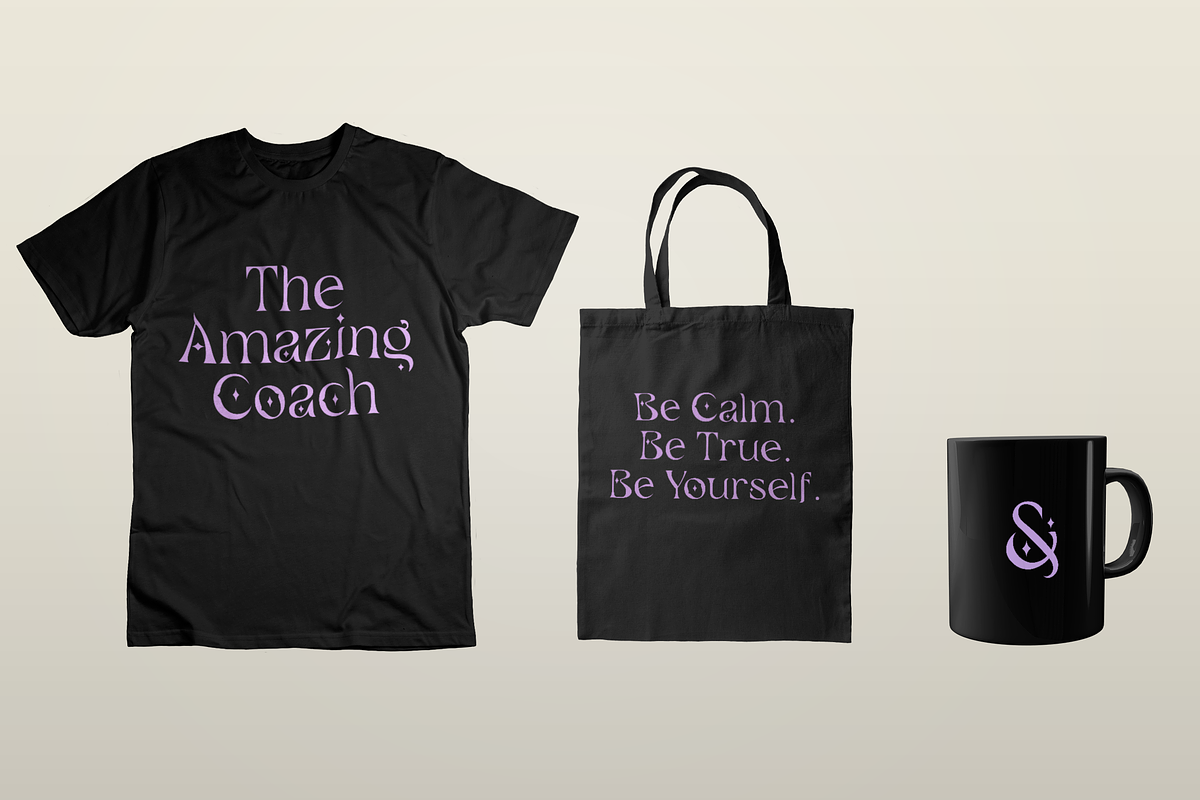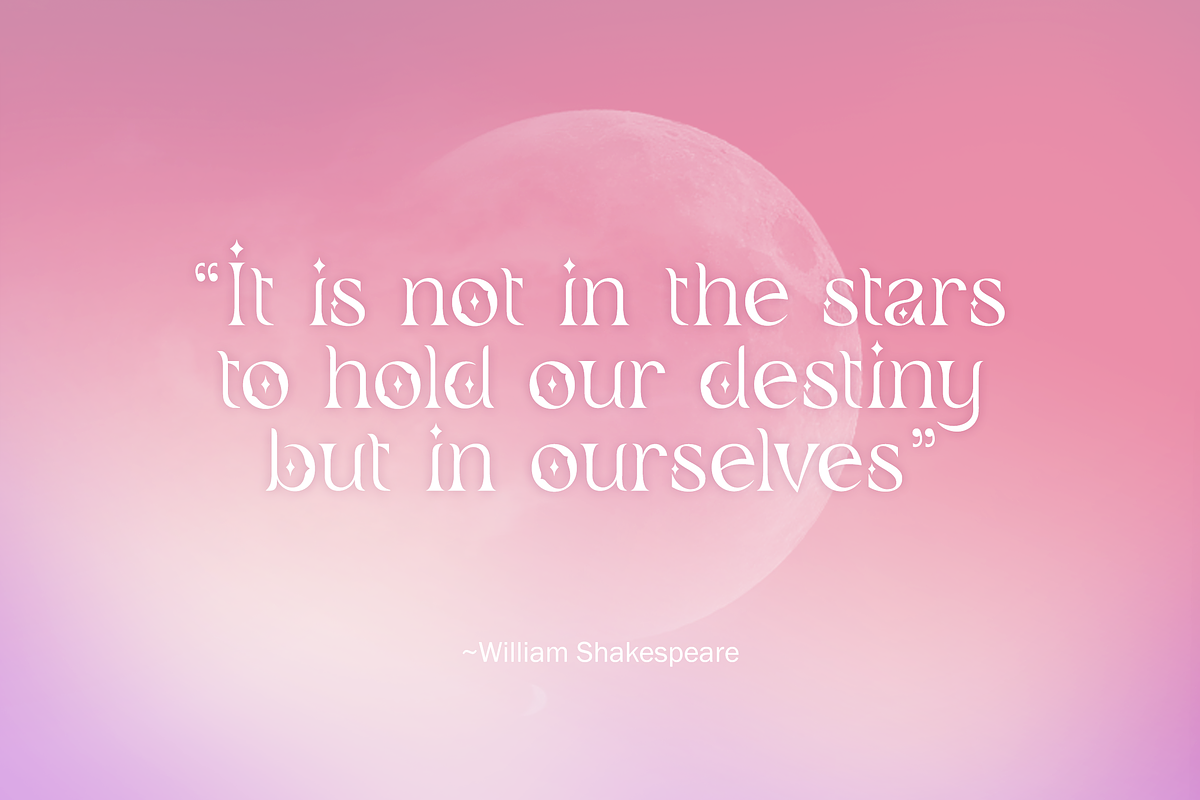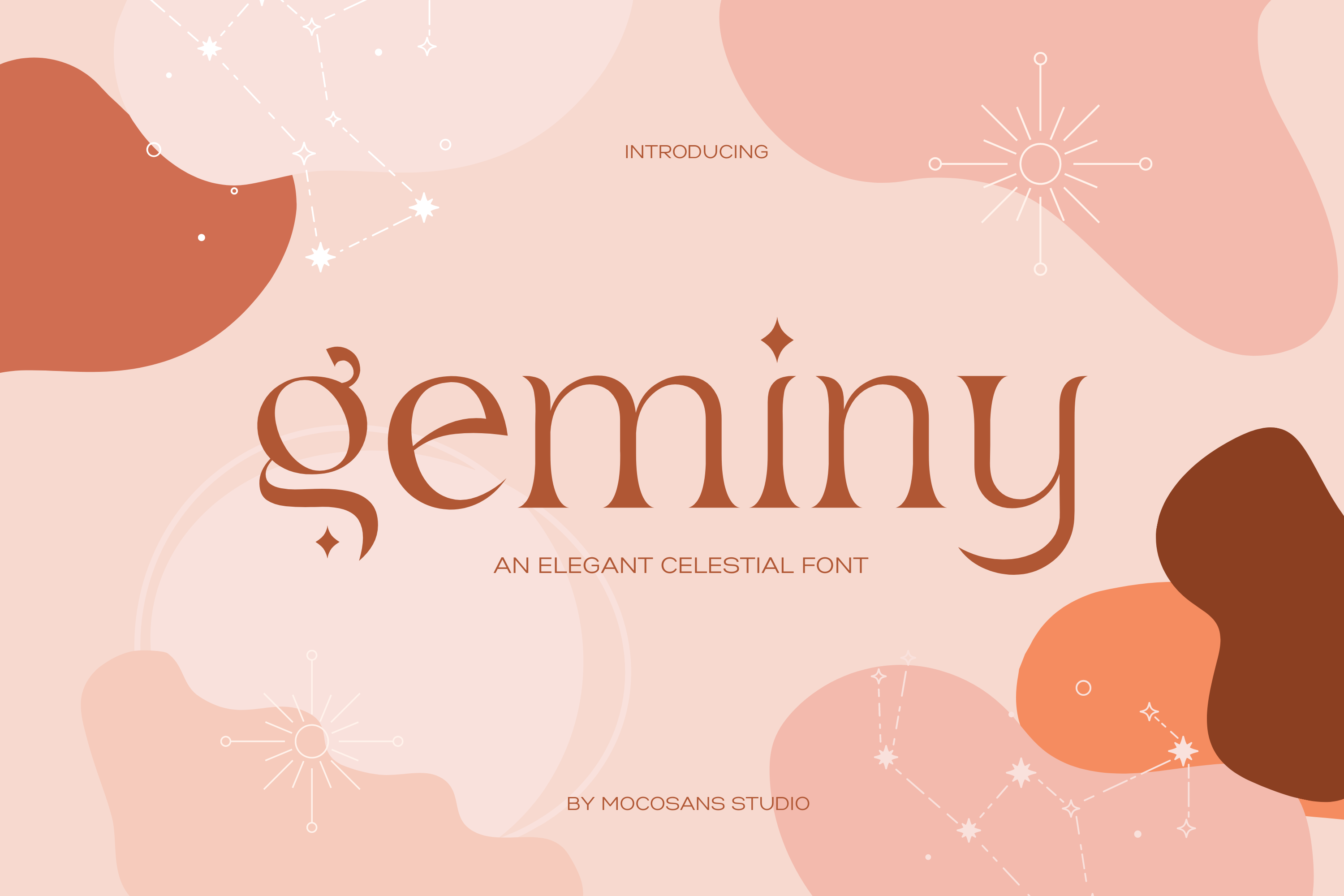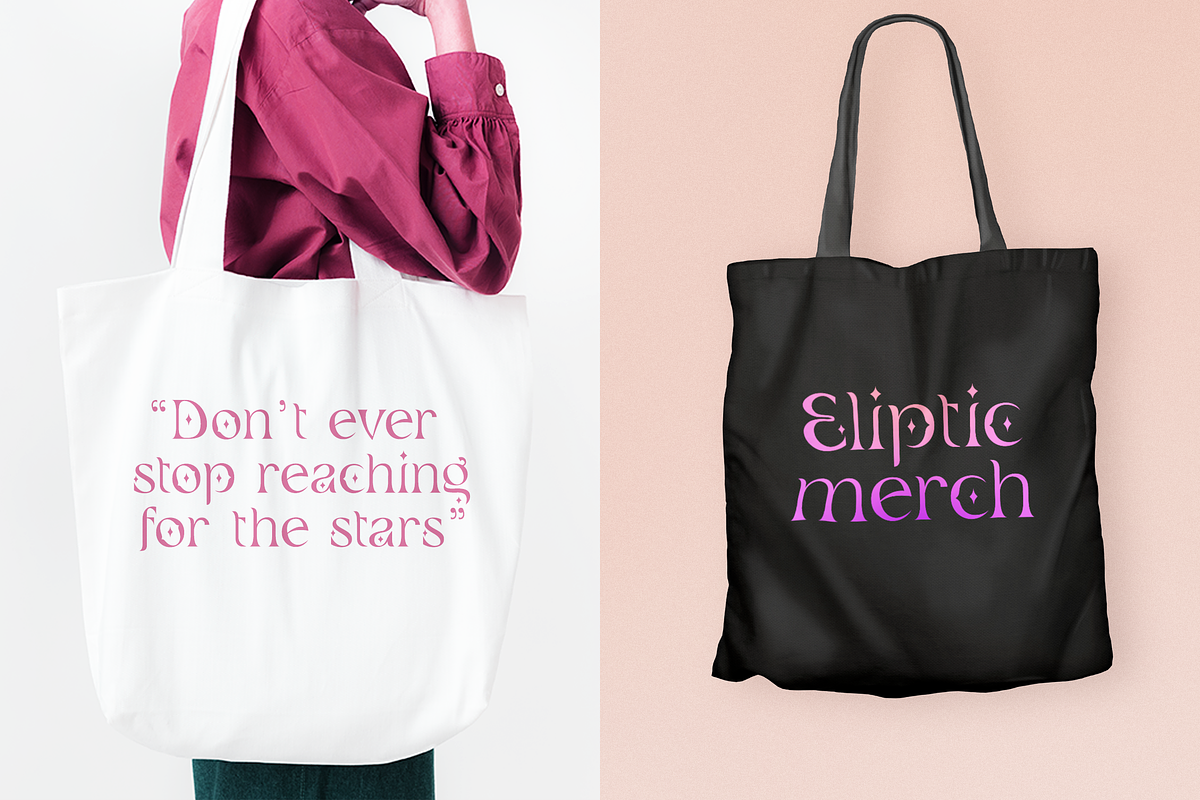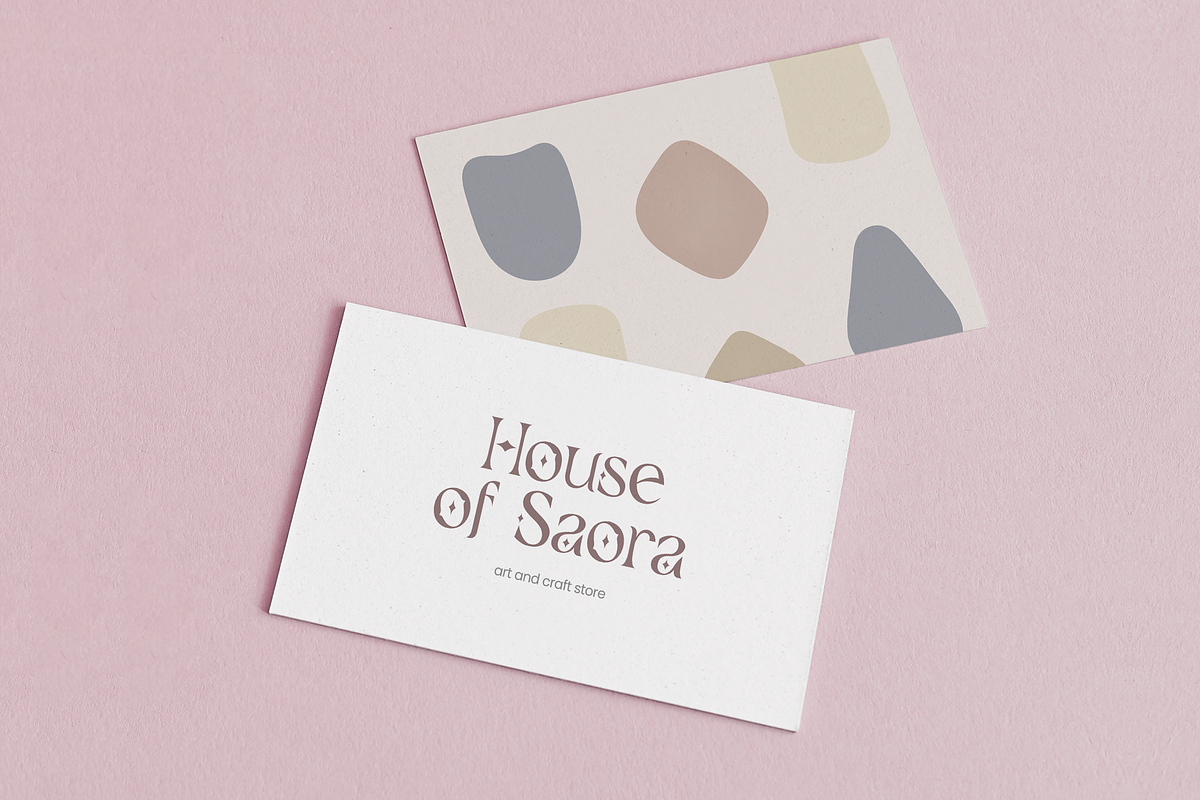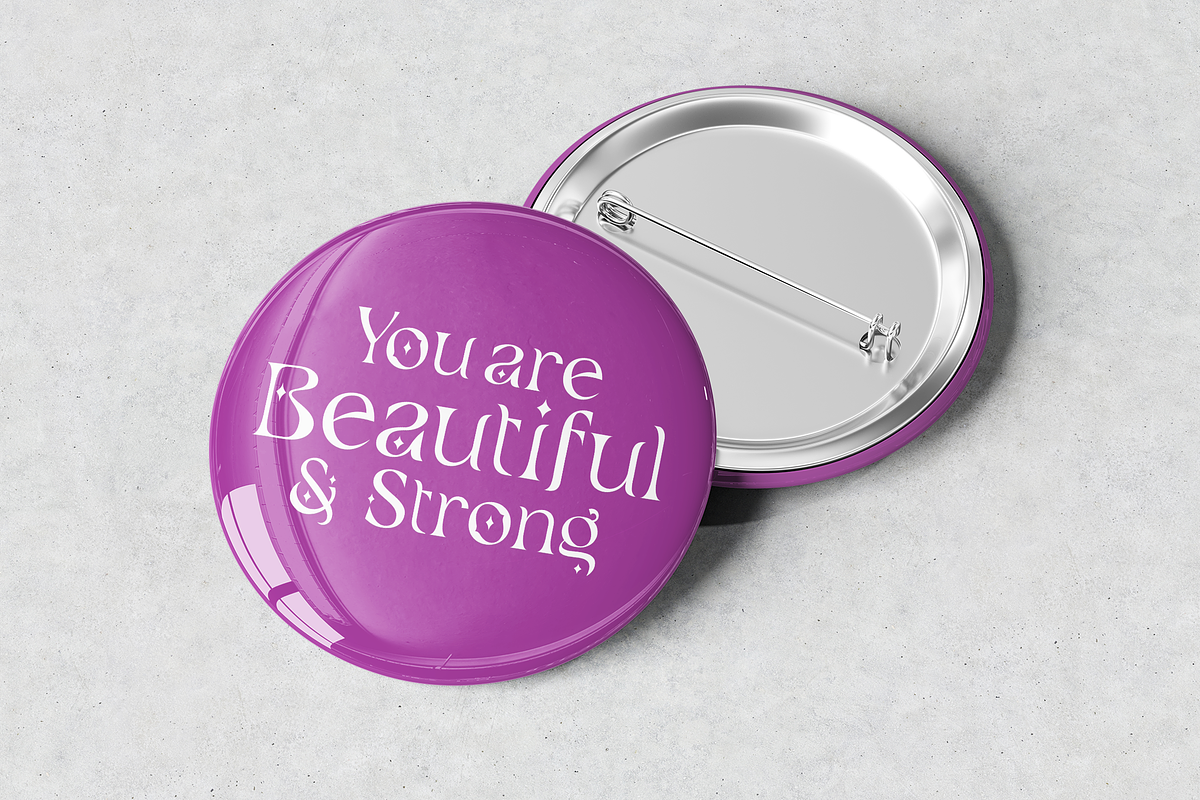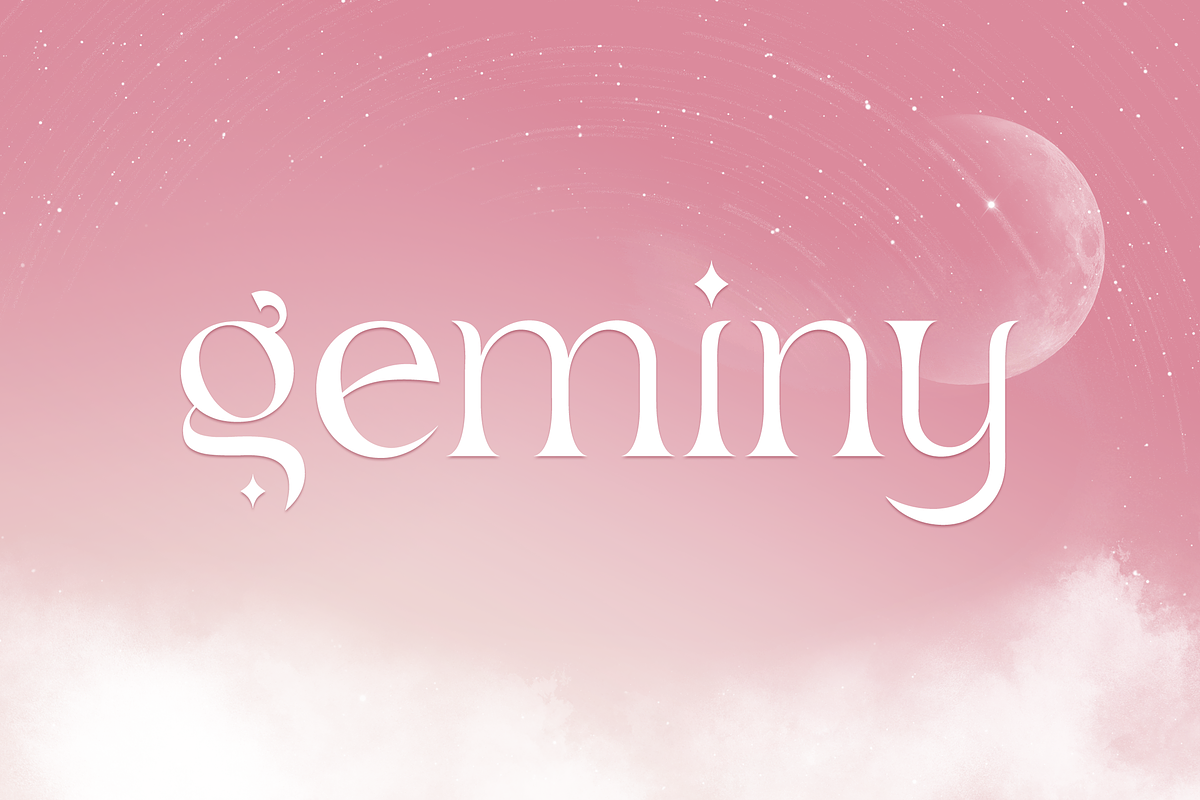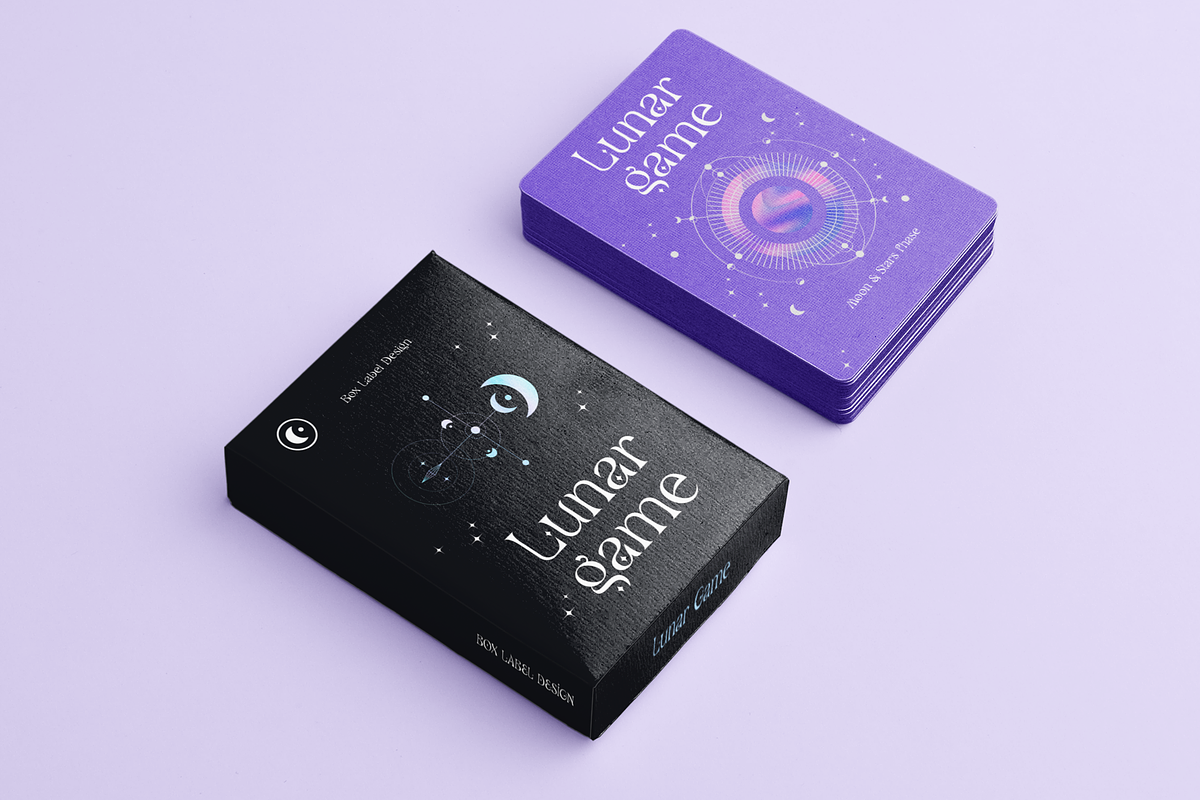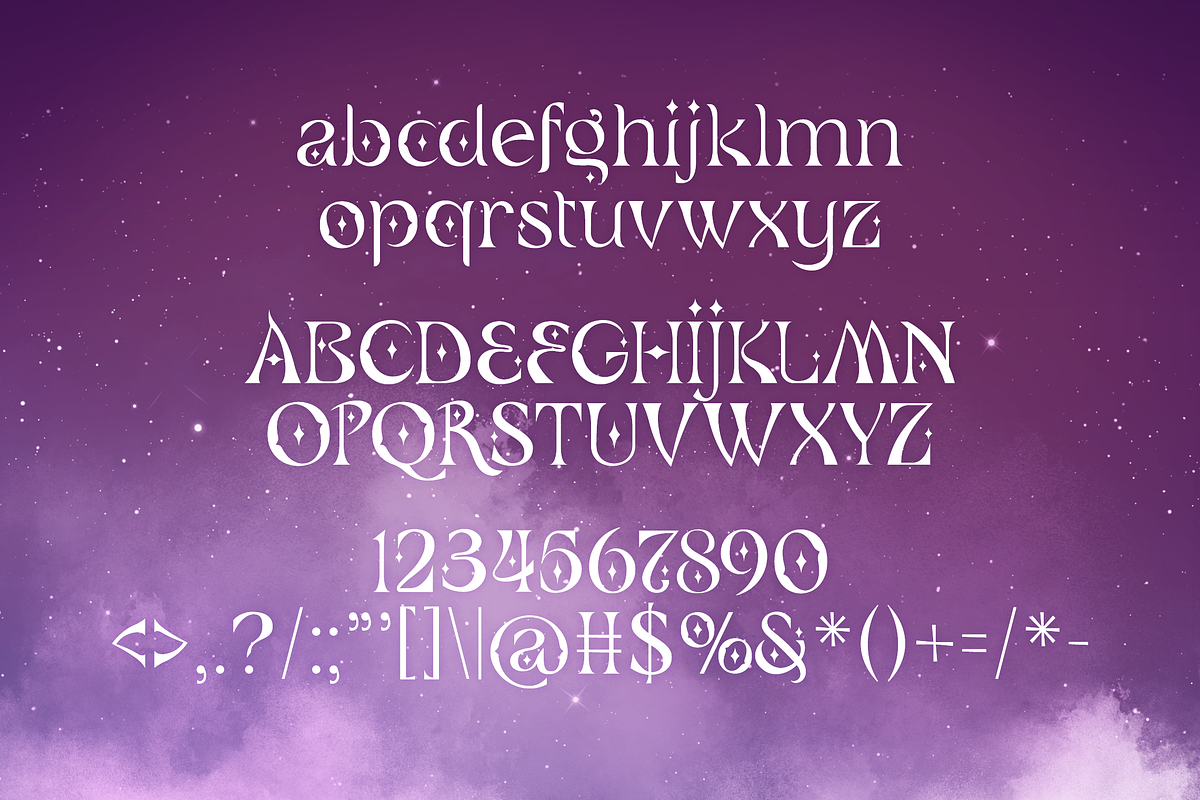
Geminy - Celestial Retro Modern Font
GEMINI FONT Modern and elegant font with celestial style touch! Gemini font is perfect for: logos, branding, craft element, business cards, greeting cards, thank you cards, stickers, magazines, social media, wedding invitations, digital and prints planner, and more!